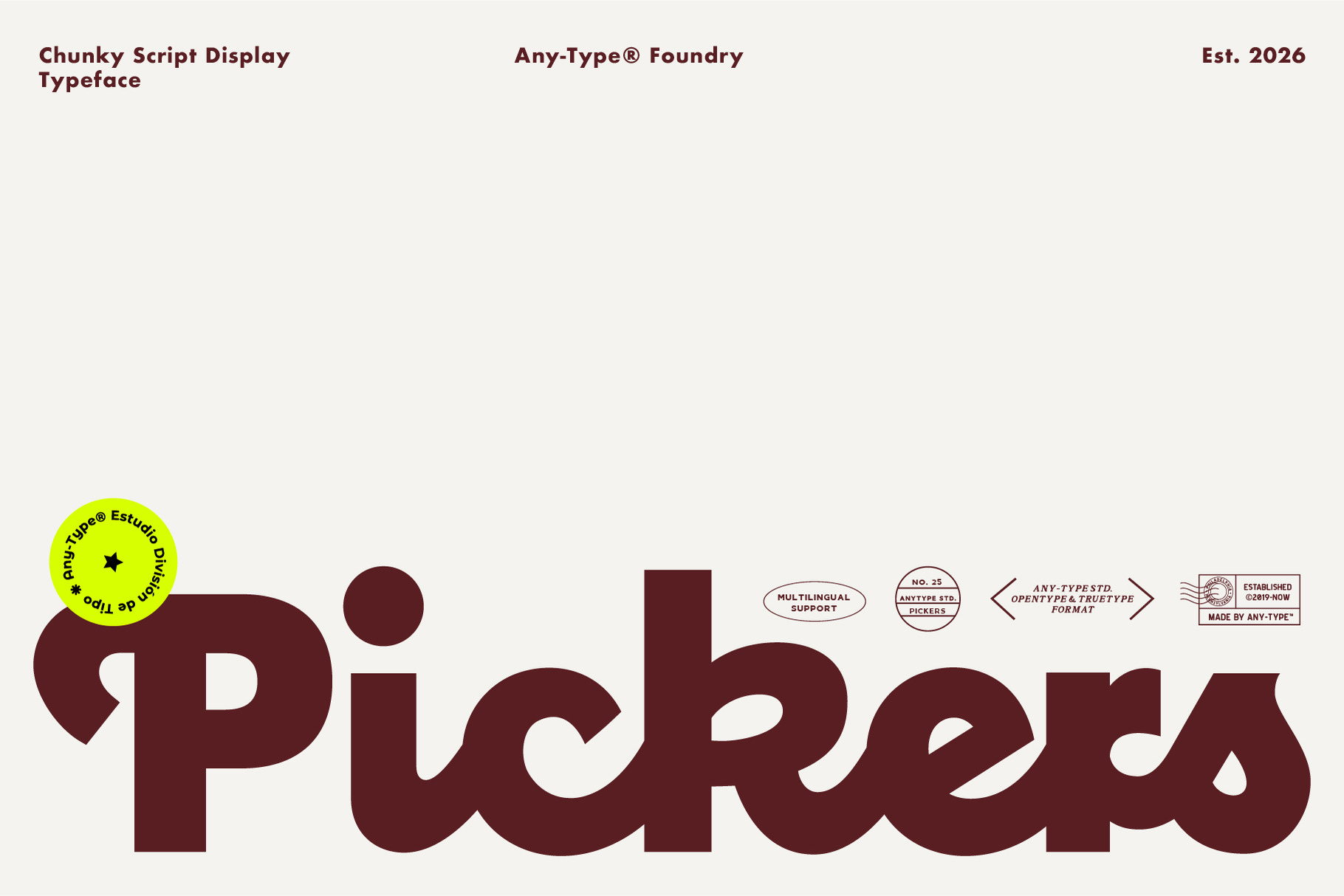
Pickers - Retro Bold Typeface
Pickers - Retro Bold Display Typeface
Pickers is a bold and playful display typeface inspired by retro design aesthetics and expressive lettering. With its chunky shapes, smooth curves, and slightly quirky character forms, Pickers delivers a strong visual presence that instantly captures attention.
The rounded strokes and soft edges give the typeface a friendly and approachable feel, while the bold structure keeps it powerful and impactful. Pickers is designed to stand out in large sizes, making it perfect for eye-catching headlines and creative branding projects.
Whether you are designing a vintage-inspired brand, fun packaging, or bold social media graphics, Pickers brings personality and charm to any layout.
- Uppercase & lowercase characters
- Bold display style
- Clean and smooth curves
Pickers is a great choice for designers looking to add a bold retro vibe with a modern touch. Its unique shapes and confident presence make any design feel more lively, memorable, and full of character.